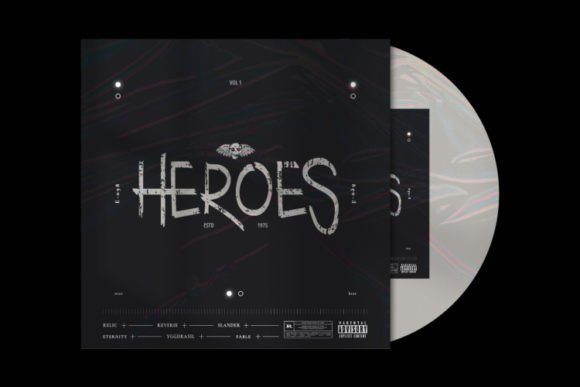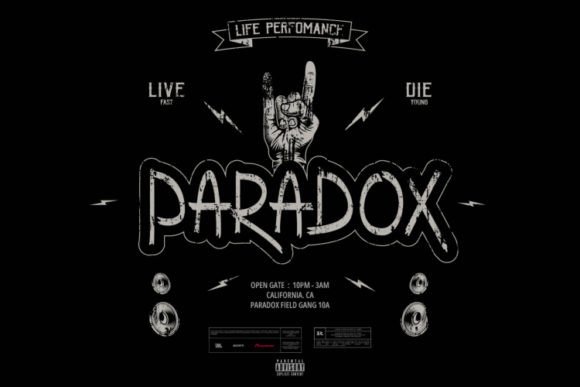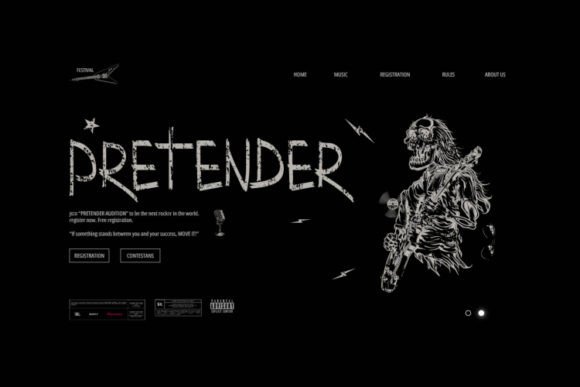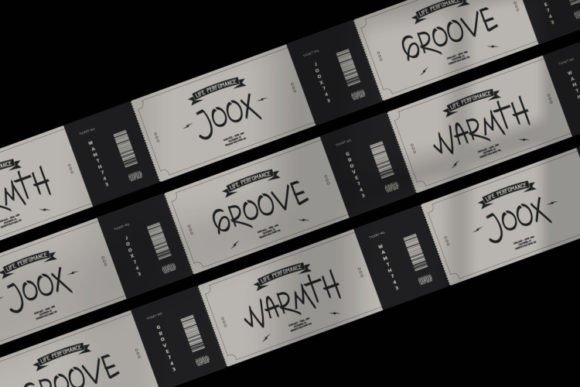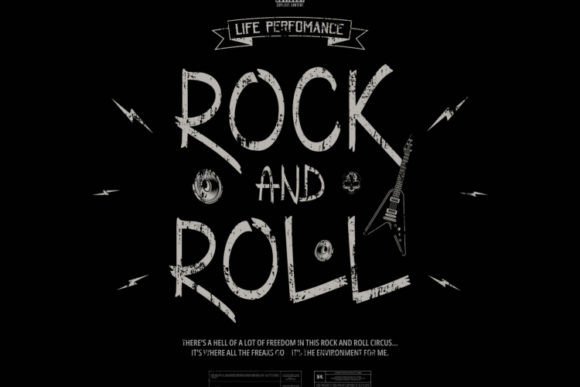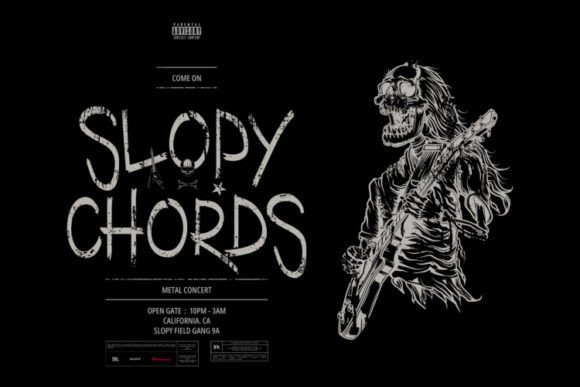
Ameirtha Font: The Ultimate Cool and Dark Brush Display Font
Are you looking for a font that can add a touch of style and sophistication to your creative projects? Look no further than Ameirtha Font. This cool and dark brush display font is sure to seduce your audience with its unique form and style. In this article, we’ll take a closer look at Ameirtha Font, its features, and how you can use it to elevate your designs.
What is Ameirtha Font?
Ameirtha Font is a brush display font that is designed to add a touch of darkness and coolness to your designs. It’s perfect for designers and crafters who want to create unique and eye-catching projects. The font features bold, expressive brushstrokes that give it a distinctive look. Whether you’re working on a logo, poster, or social media graphic, Ameirtha Font is sure to make your project stand out.
Key Features of Ameirtha Font
Ameirtha Font comes with a range of features that make it a versatile and powerful font. Some of its key features include:
- Unique Brushstrokes: Ameirtha Font features bold, expressive brushstrokes that give it a distinctive look.
- Dark and Cool Style: The font has a dark and cool style that’s perfect for designs that require a touch of sophistication.
- Display Font: Ameirtha Font is designed as a display font, making it perfect for headlines, titles, and other display text.
Creative Uses for Ameirtha Font
Ameirtha Font is a versatile font that can be used in a range of creative projects. Here are some ideas to get you started:
- Logos: Use Ameirtha Font to create a unique and eye-catching logo for your business or brand.
- Posters: Create a stunning poster using Ameirtha Font and add a touch of sophistication to your design.
- Social Media Graphics: Use Ameirtha Font to create eye-catching social media graphics that will grab the attention of your audience.
- Invitations: Create beautiful invitations using Ameirtha Font and add a touch of elegance to your event.
Tips for Using Ameirtha Font
Here are some tips for using Ameirtha Font in your designs:
- Use it as a Display Font: Ameirtha Font is designed as a display font, so use it for headlines and titles.
- Pair it with Other Fonts: Pair Ameirtha Font with other fonts to create a unique and interesting design.
- Keep it Simple: Keep your design simple and clean to let Ameirtha Font shine.
Ameirtha Font is a cool and dark brush display font that’s perfect for designers and crafters who want to add a touch of style and sophistication to their creative projects. With its unique brushstrokes and dark and cool style, Ameirtha Font is sure to seduce your audience with its style and form. Whether you’re working on a logo, poster, or social media graphic, Ameirtha Font is a versatile font that can help you create stunning designs.